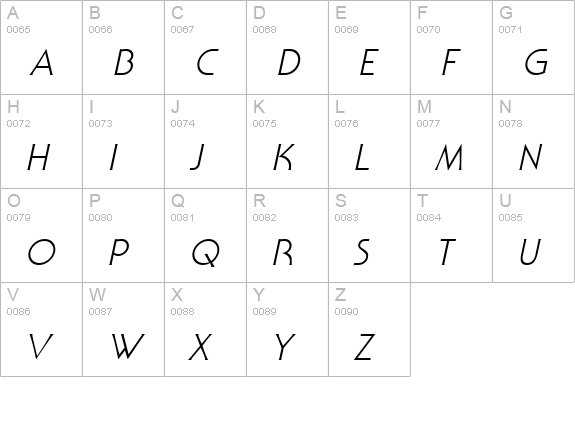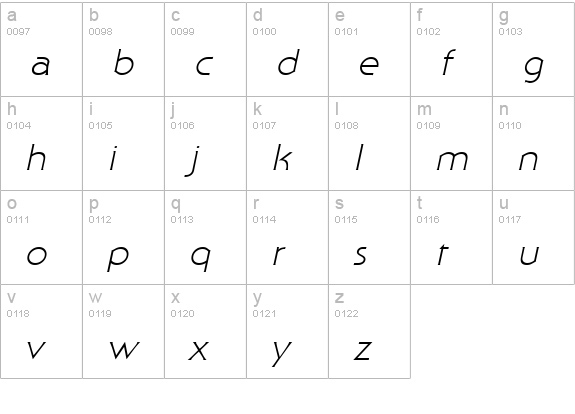
Staid Italic is a distinctive, italic variant in the Staid typeface family \xE2\x80\x94 well suited to design and typography projects.
Staid Italic font is a stunning typeface that effortlessly blends elegance and sophistication. With its sleek and refined design, this font exudes a timeless charm that is sure to captivate any audience. The italicized letterforms of Staid Italic add a touch of flair and sophistication to any project, making it perfect for a variety of design applications. Whether used in editorial designs, branding materials, or web graphics, this font effortlessly elevates any piece of content to a whole new level. One of the greatest features of Staid Italic is that it is freely available to download at FontsMarket.com. This means that designers and creatives can easily access this gorgeous font without any cost, allowing them to bring their visions to life without breaking the bank. Staid Italic's versatility extends beyond its design, as it seamlessly pairs with a wide range of other typefaces. Its clean lines and balanced proportions make it an excellent choice for both heading and body text, creating a cohesive and visually appealing composition. With its timeless aesthetic and availability as a free download, Staid Italic font offers designers a perfect balance between affordability and quality. It is a must-have addition to any font library, ensuring that every project can be executed with style and finesse.